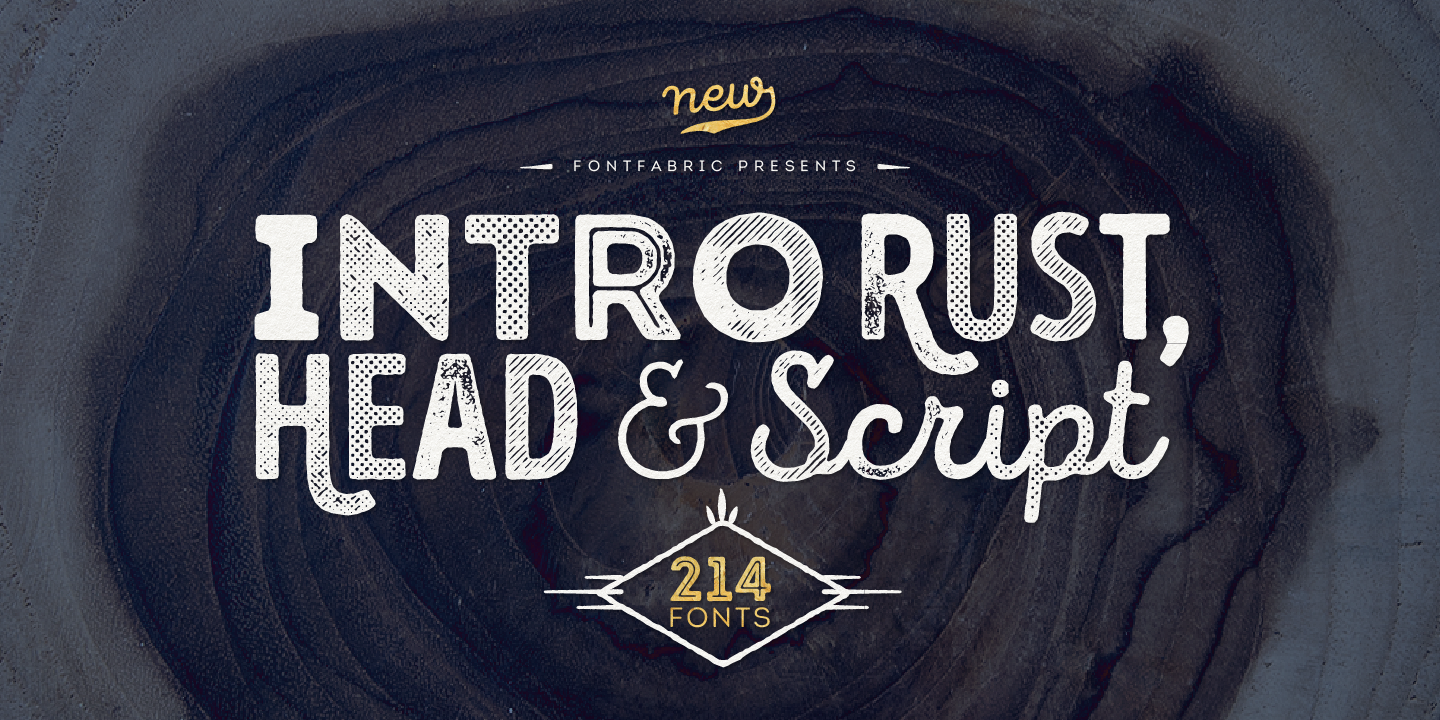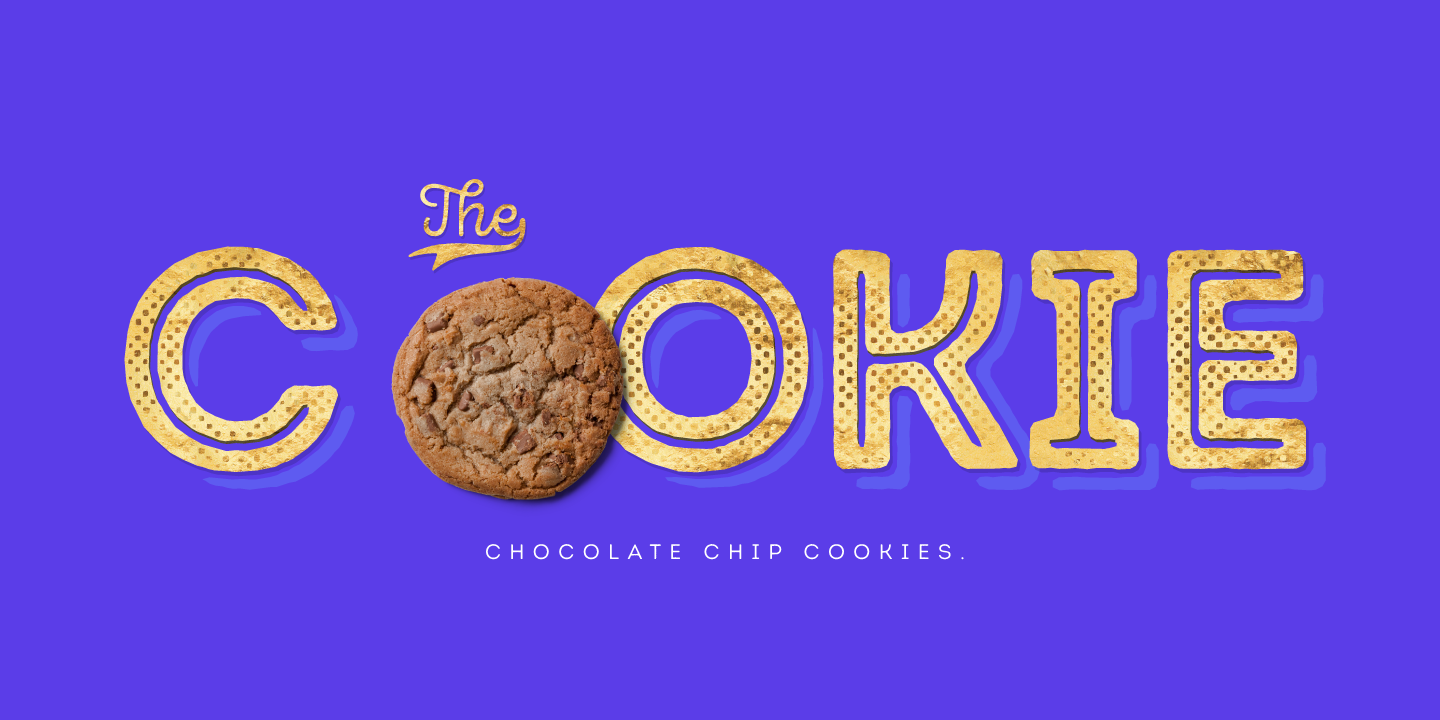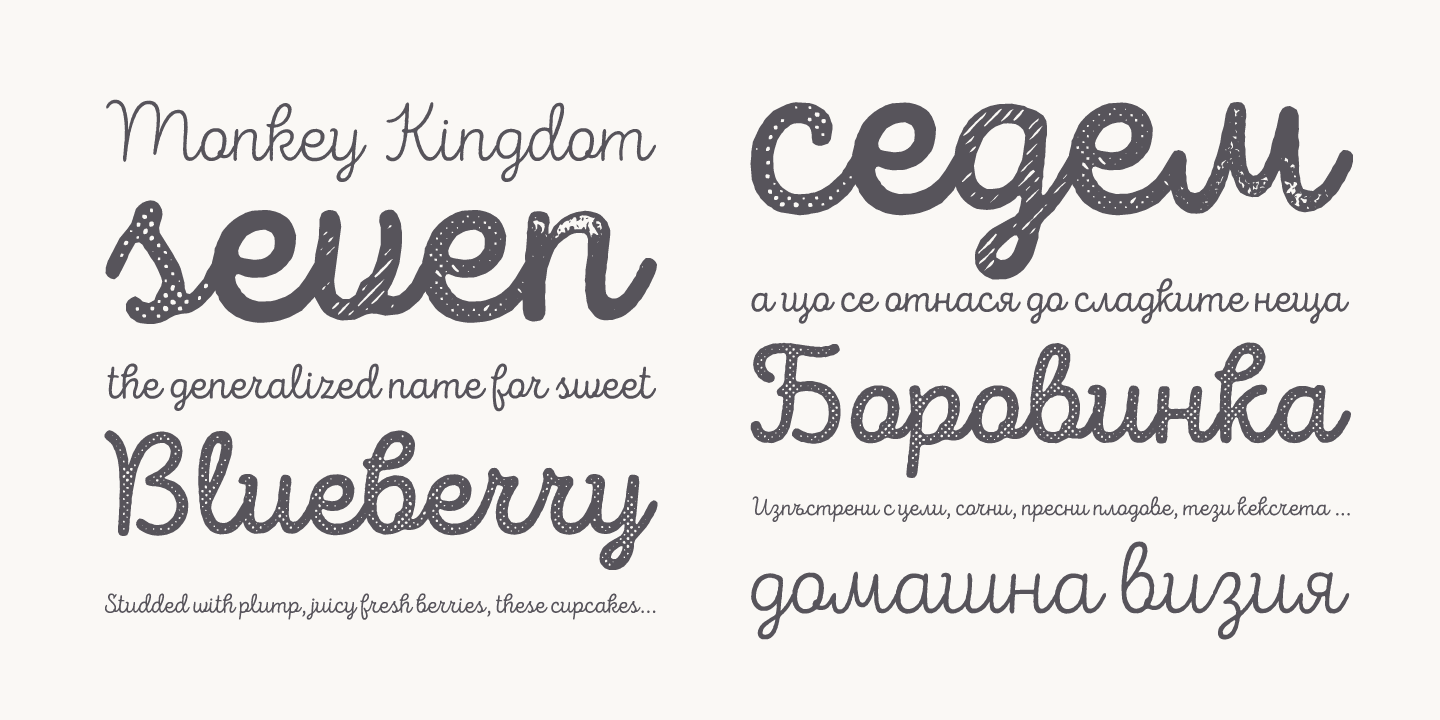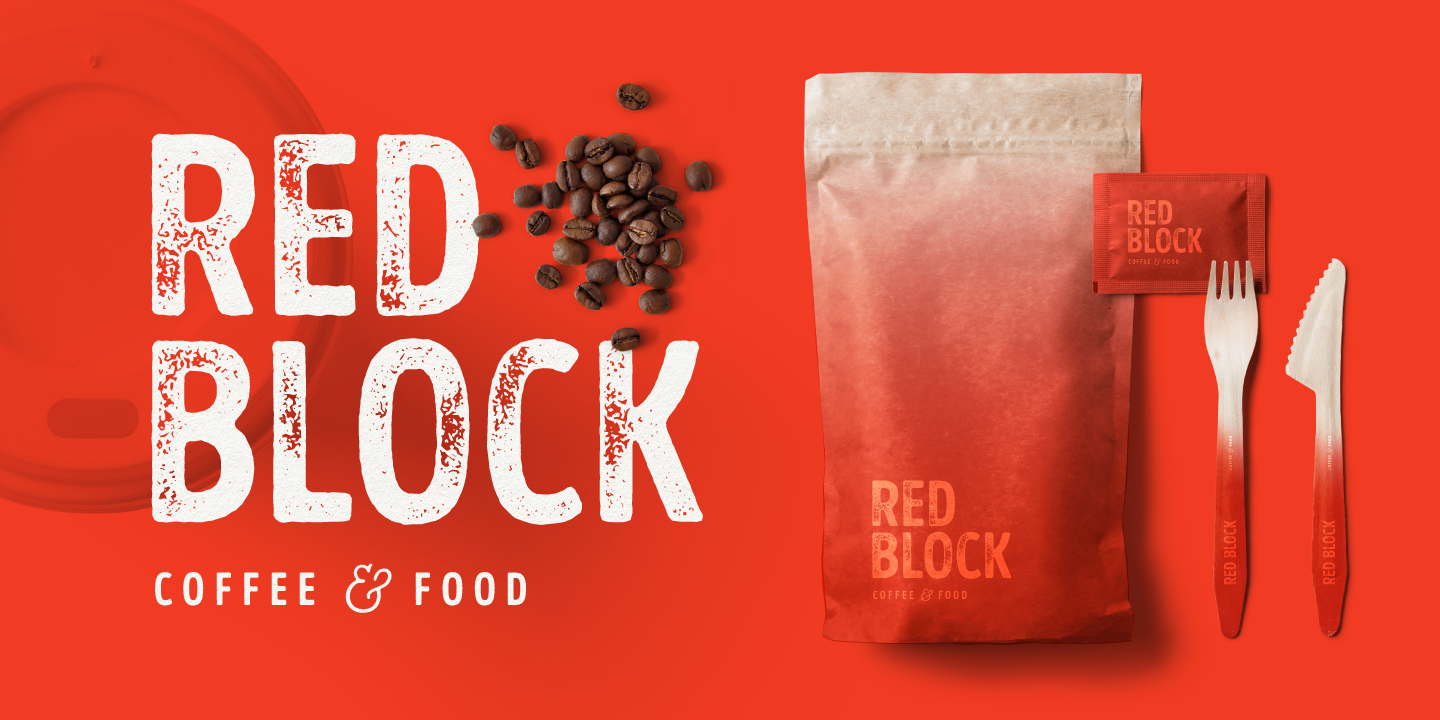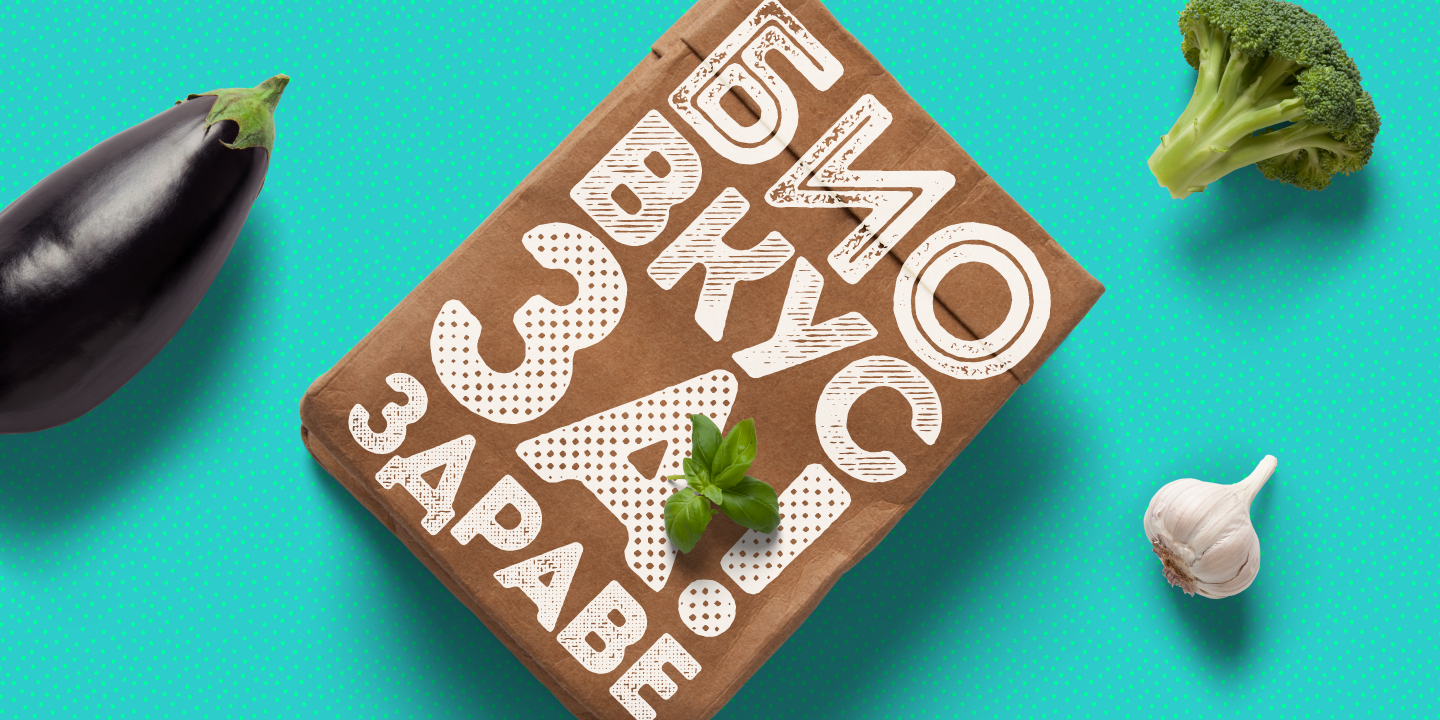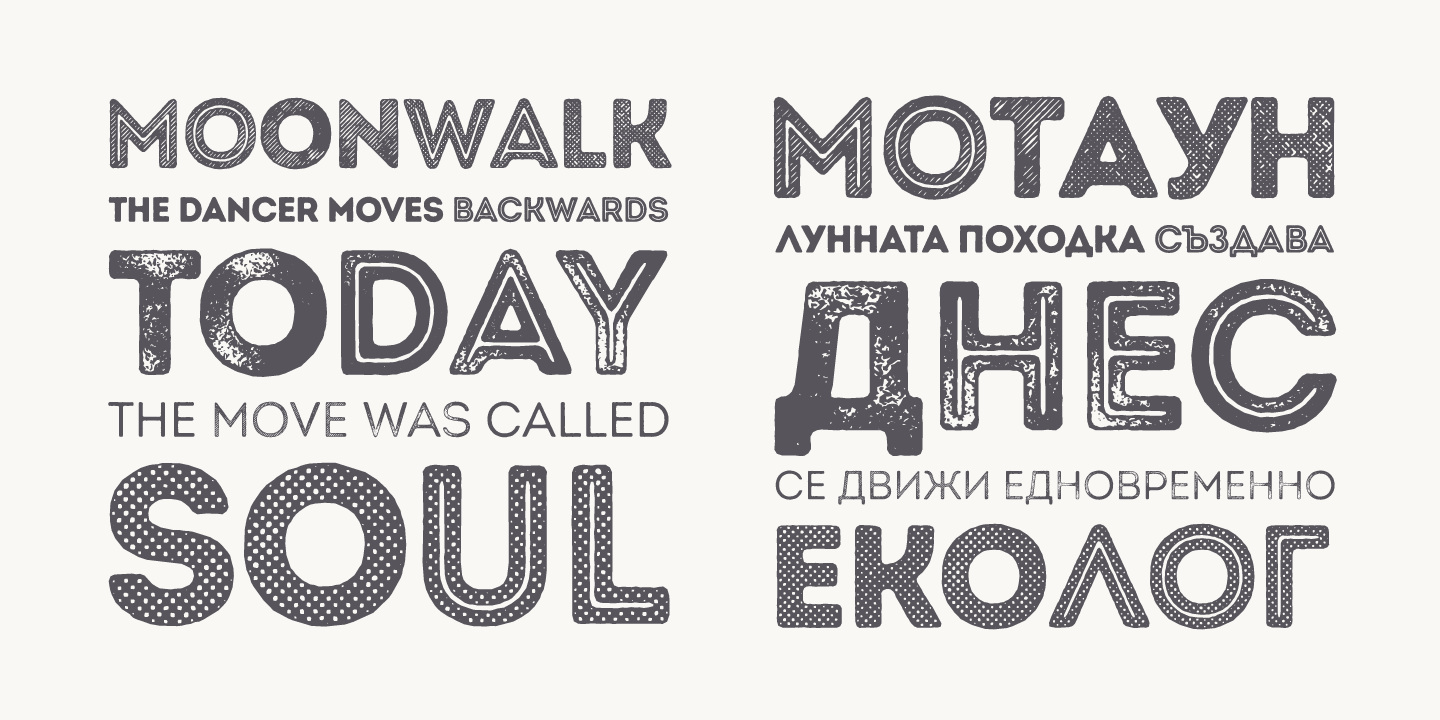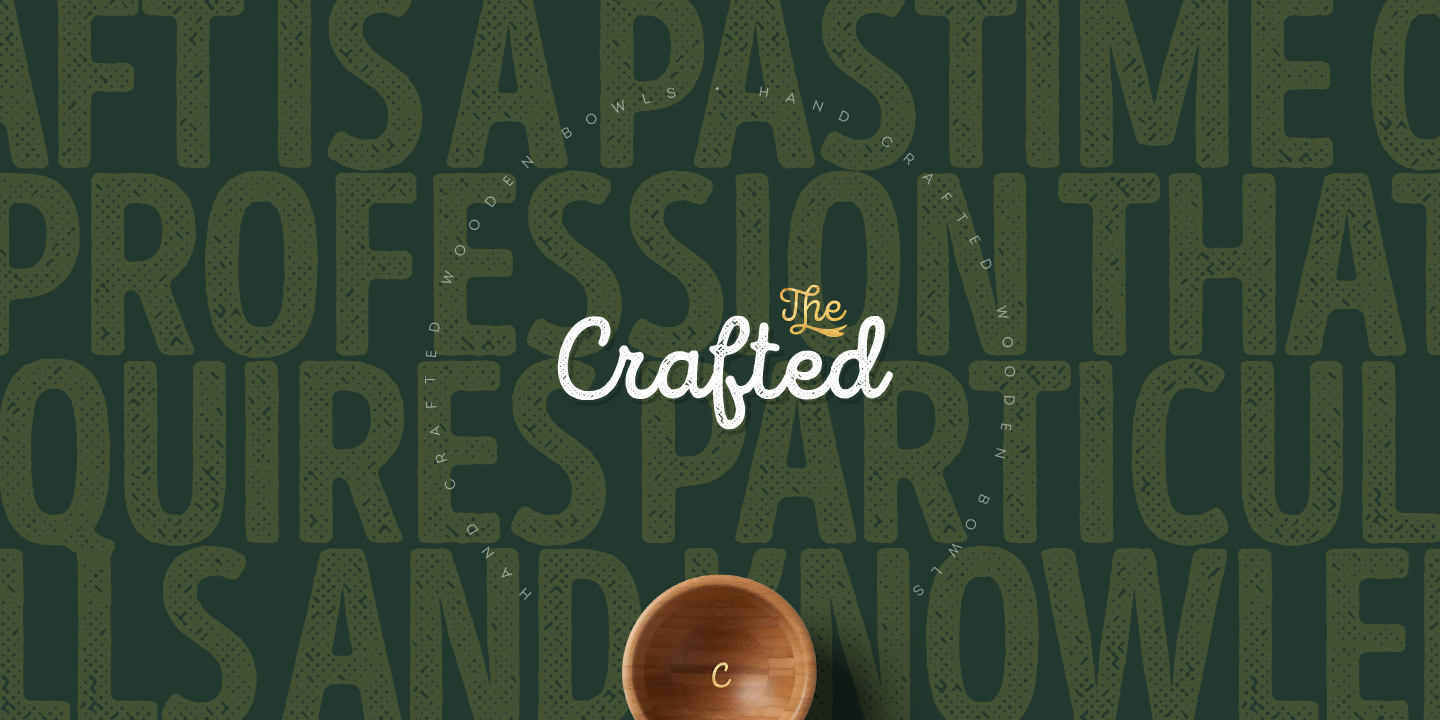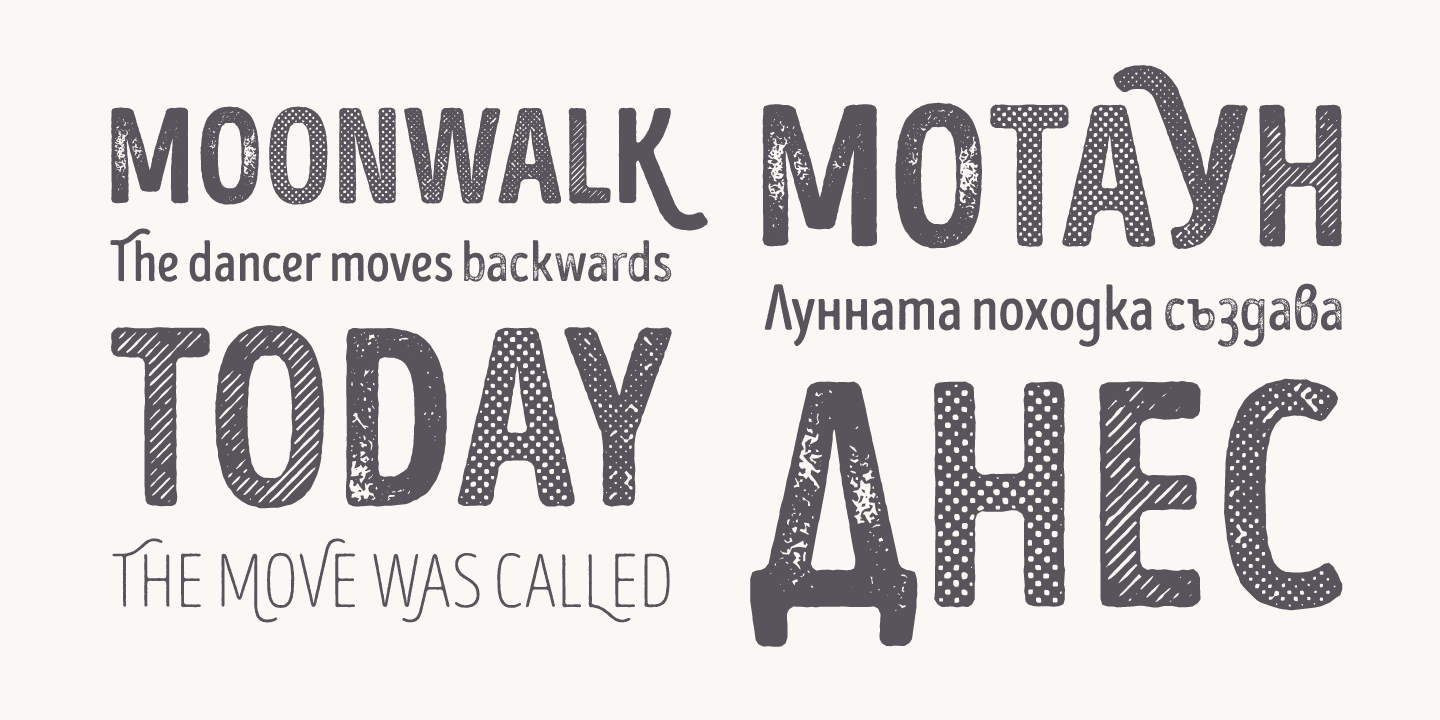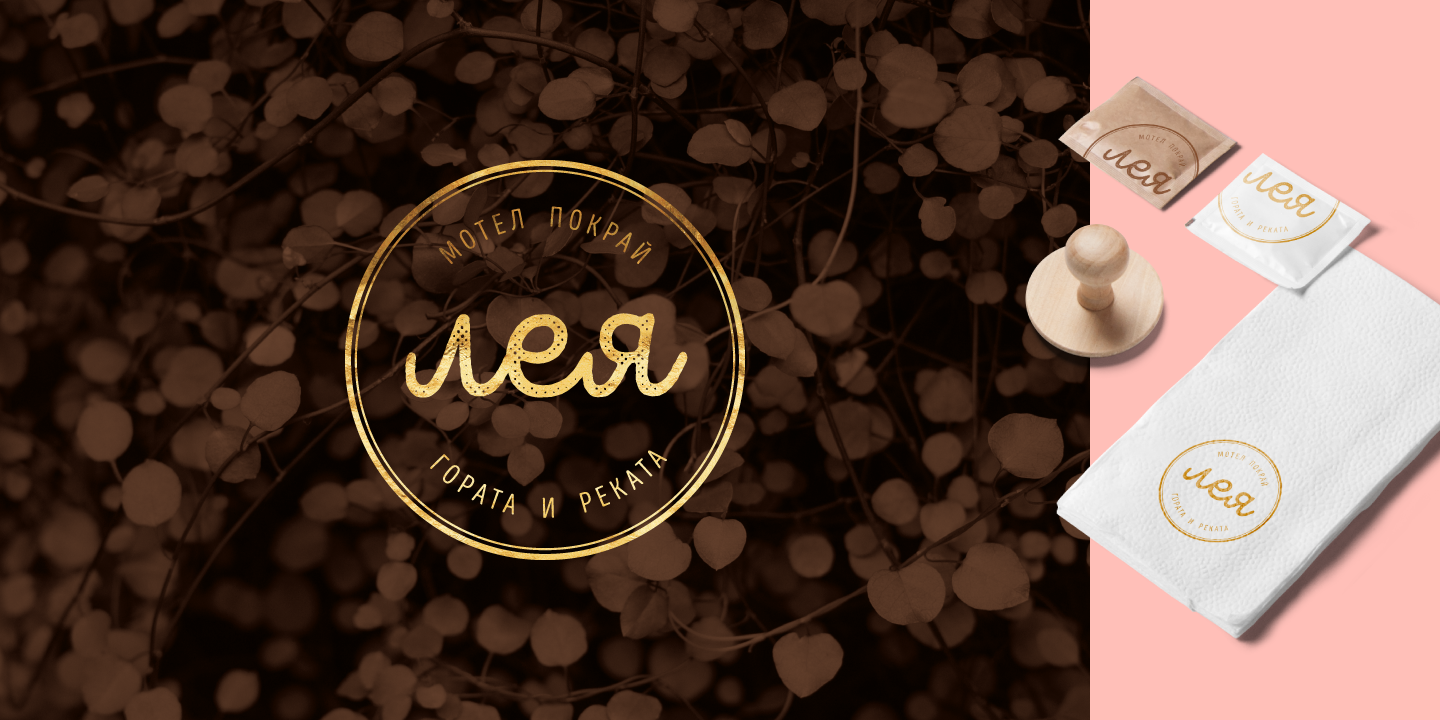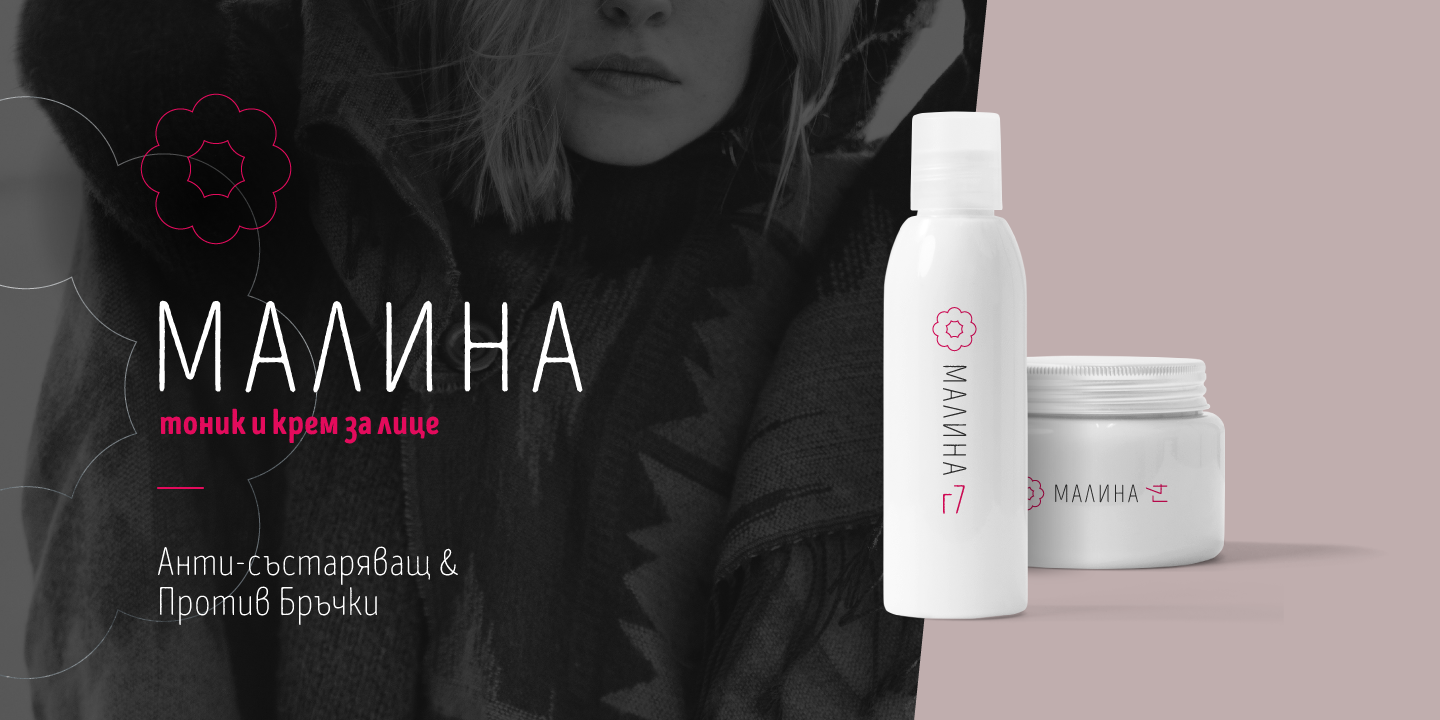
Intro Rust Complete Family - 214 fonts (214 fonts)
The font family is a rough version of the famous Intro. Intro Rust includes 4 sub-families: Intro Rust, Intro Script, Intro Head and Intro Goodies. It can be used to create almost all types of design projects like print materials and web design. Just use your imagination and your project will become alive and vivid than ever with one of the Intro Rust fonts.